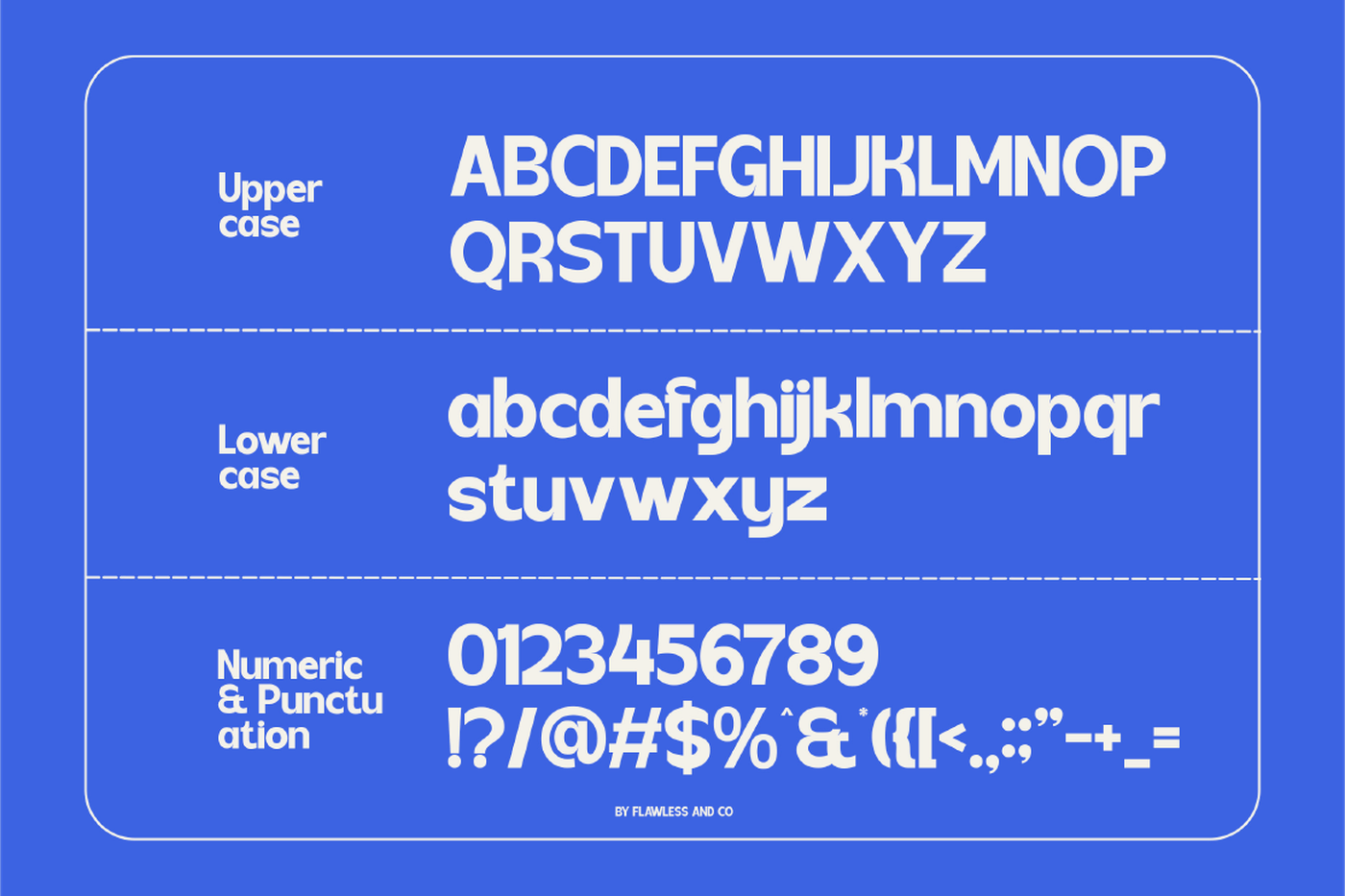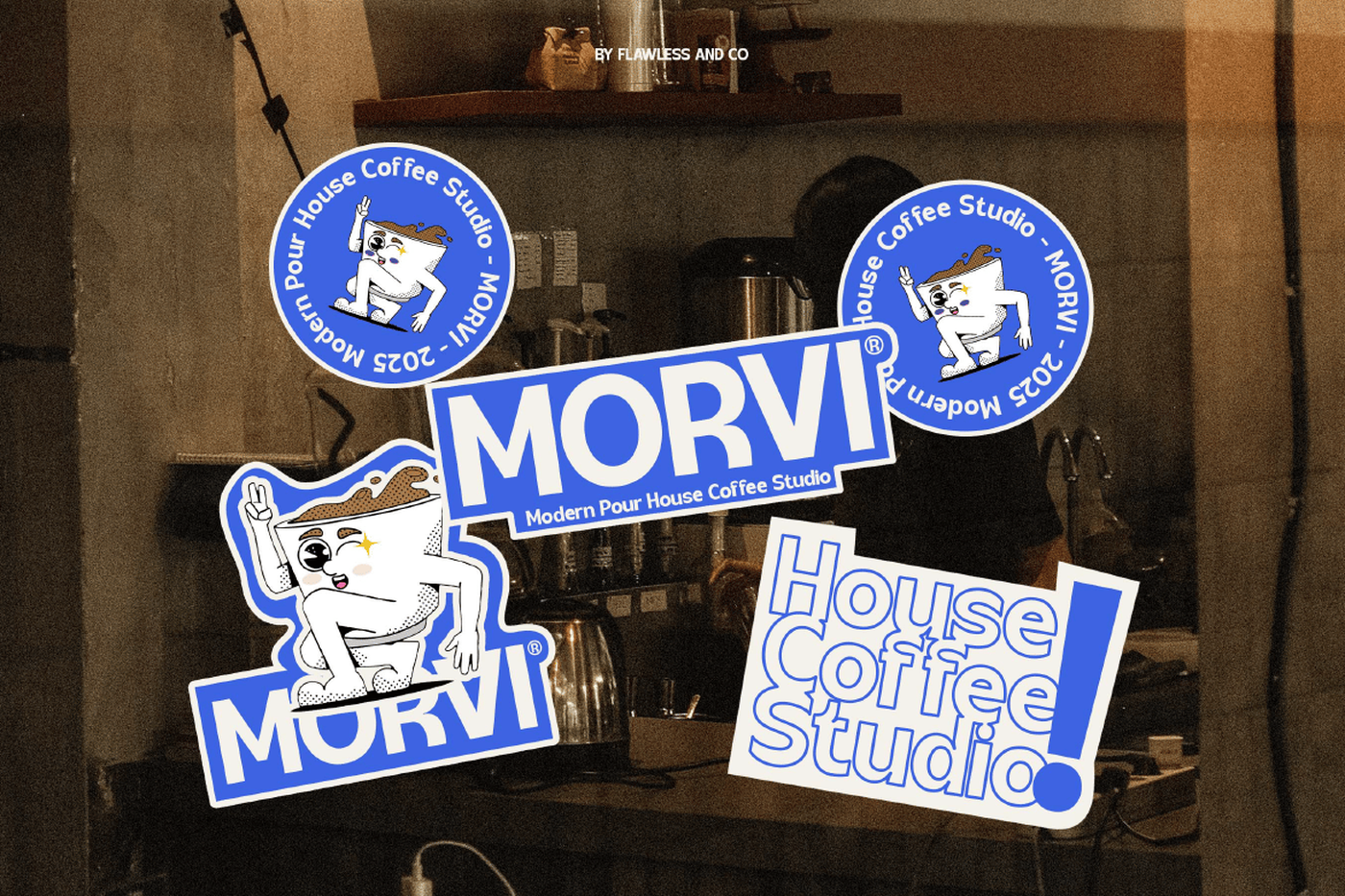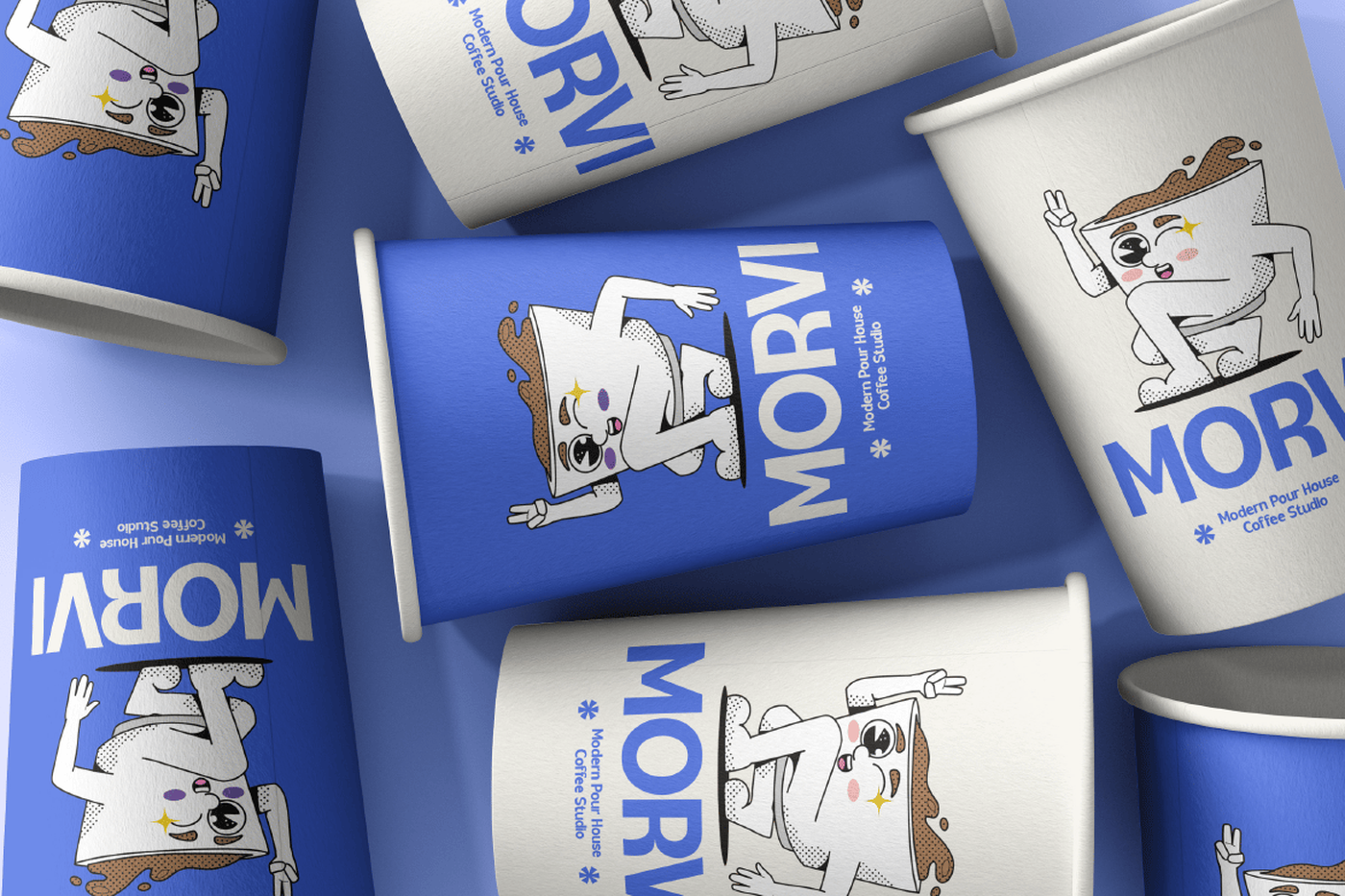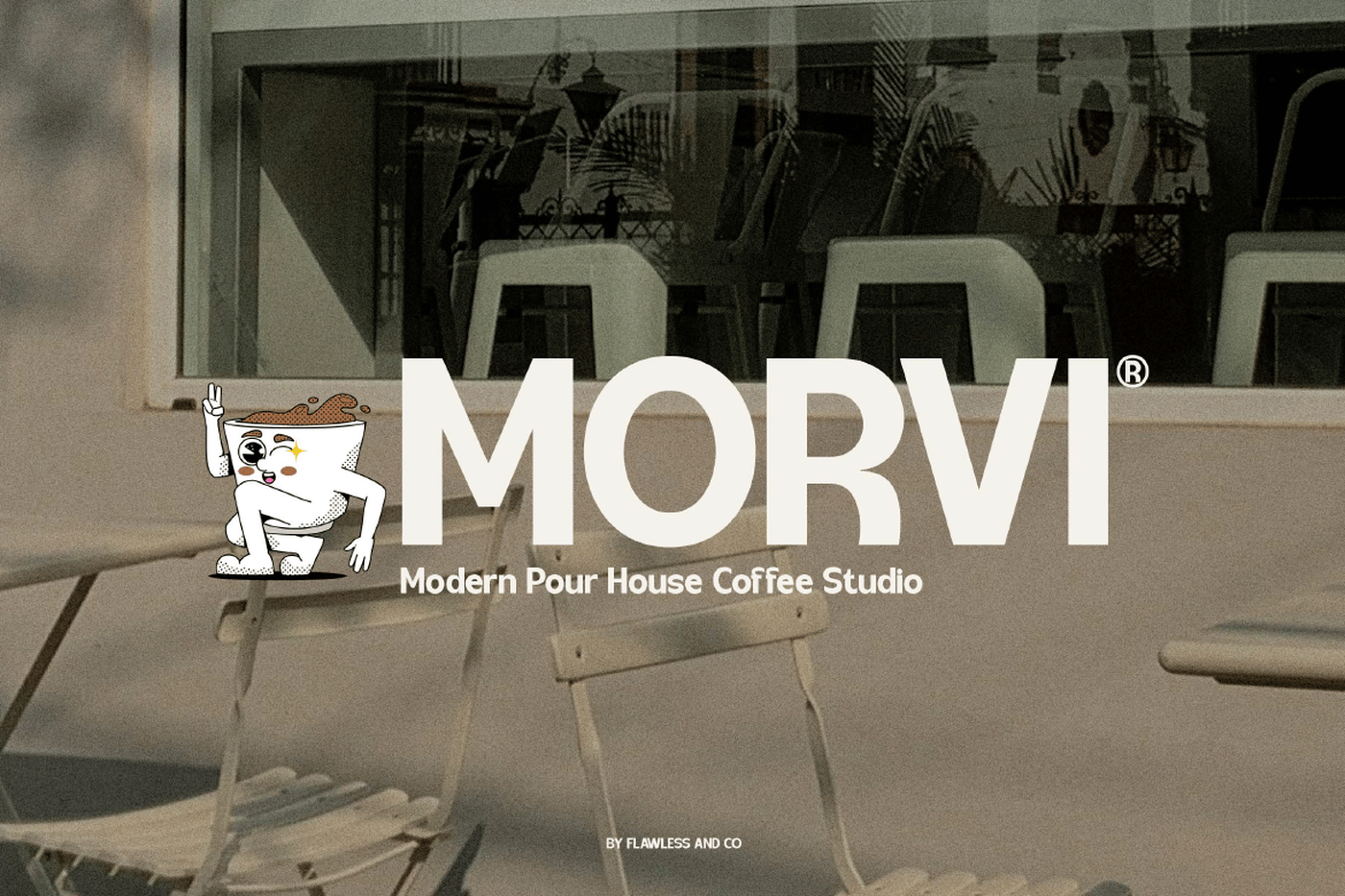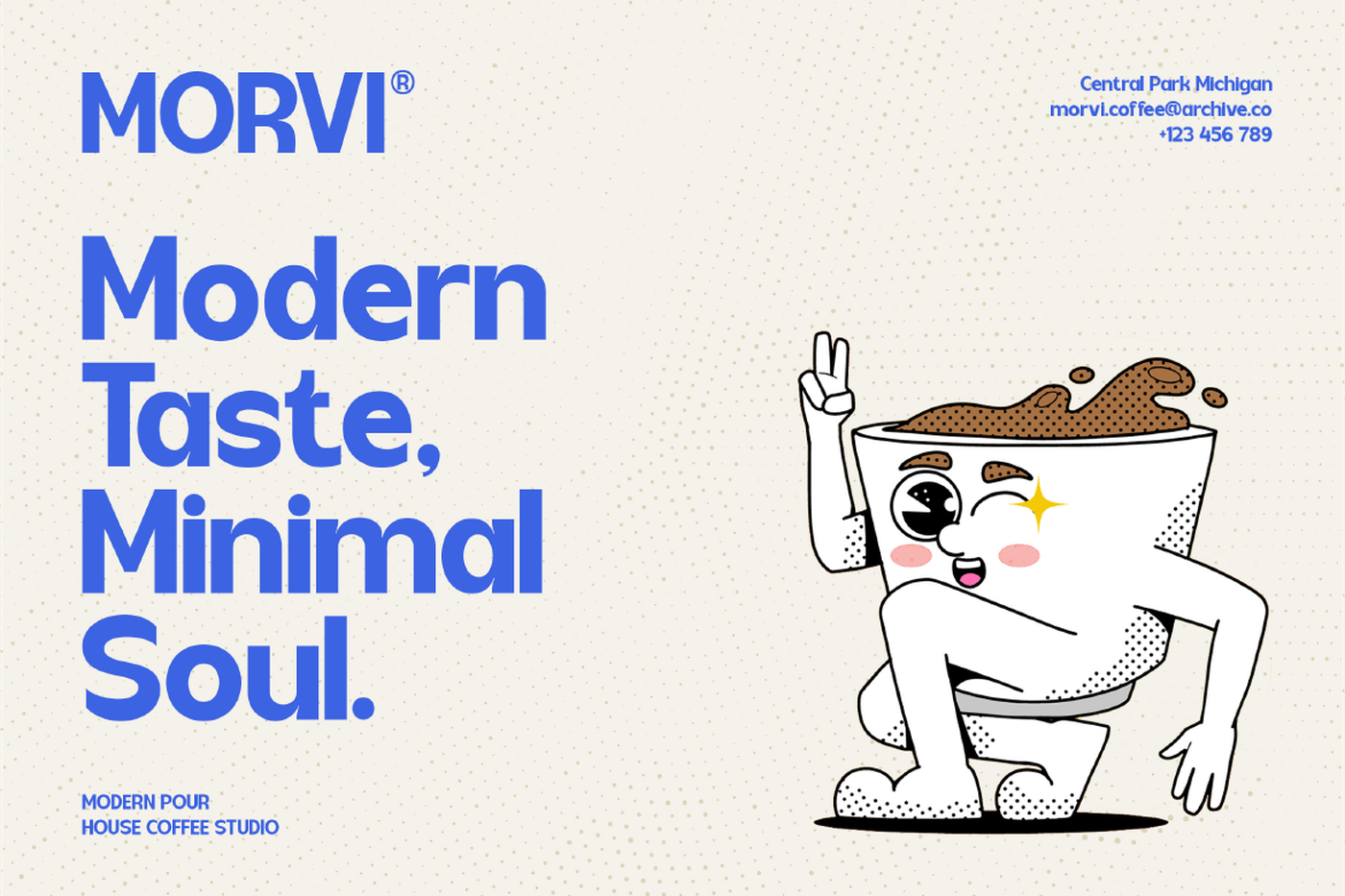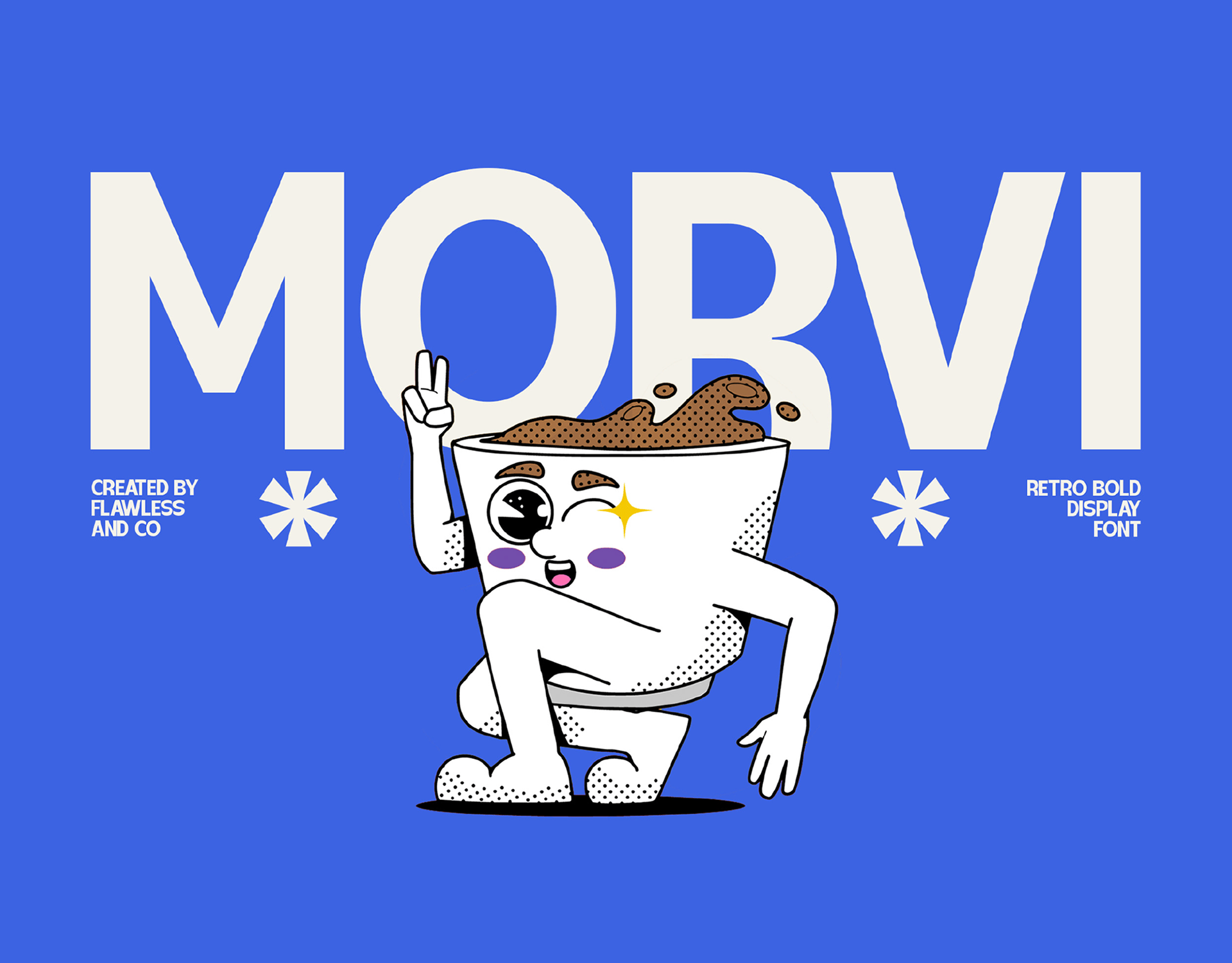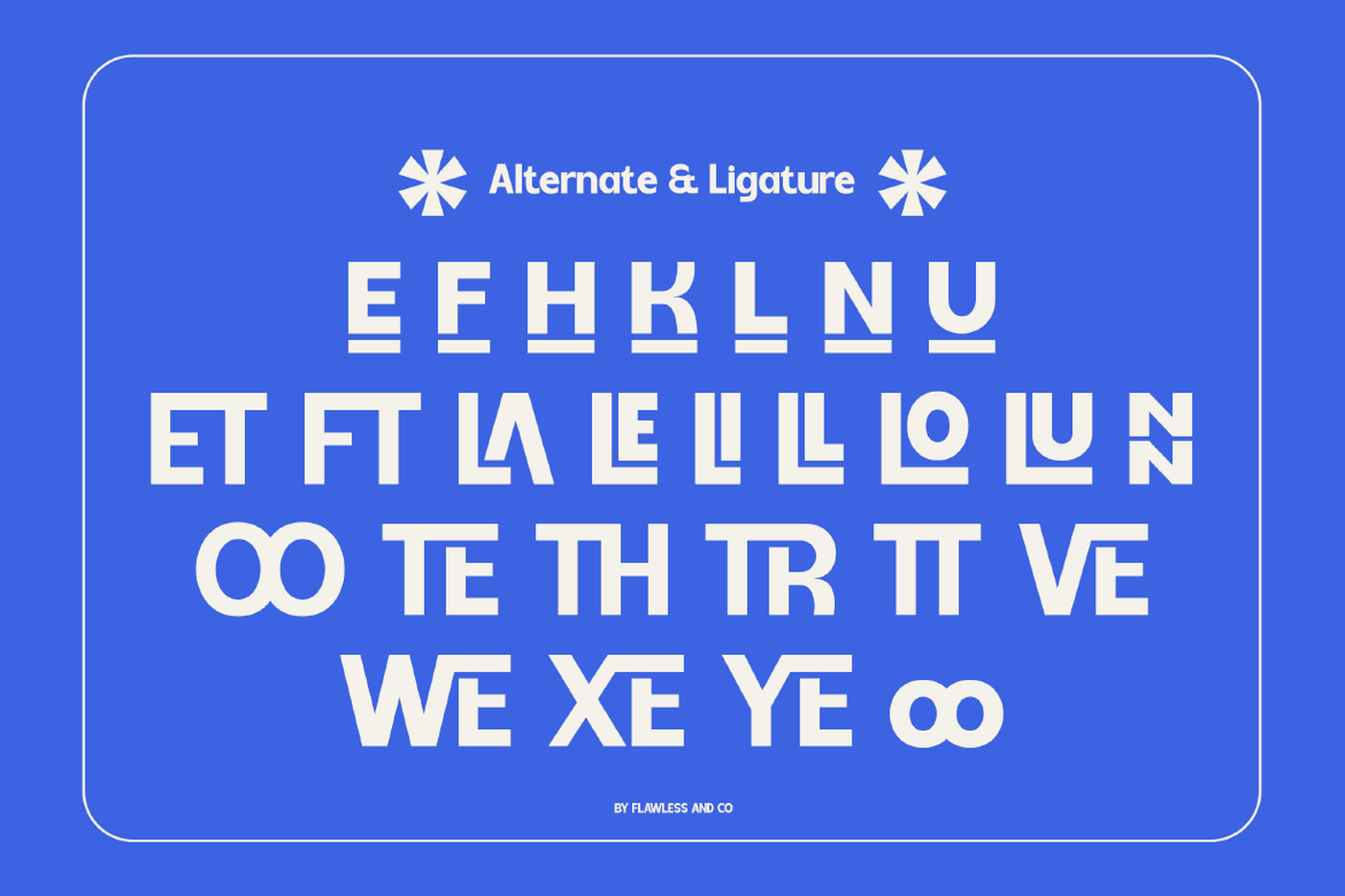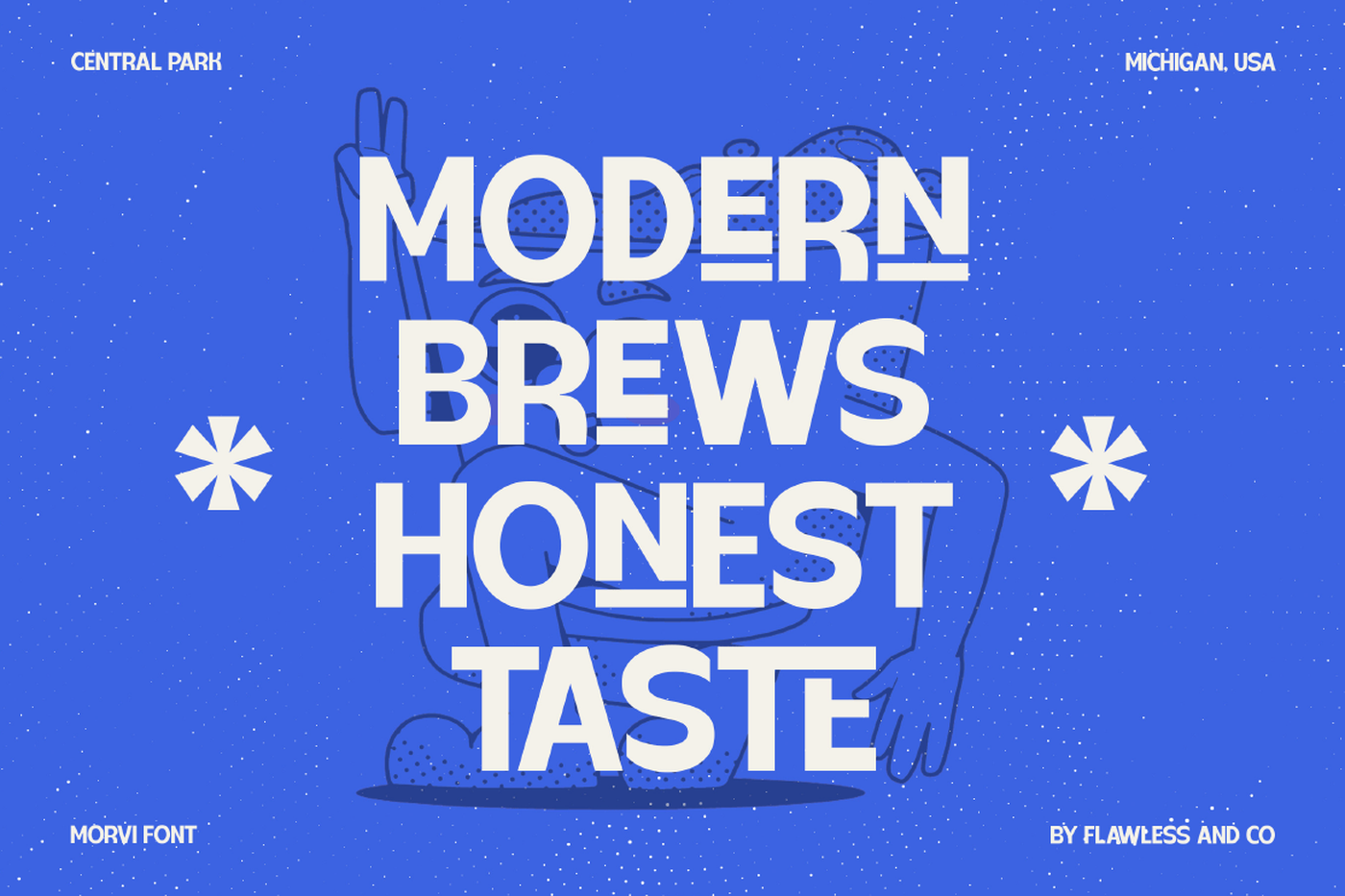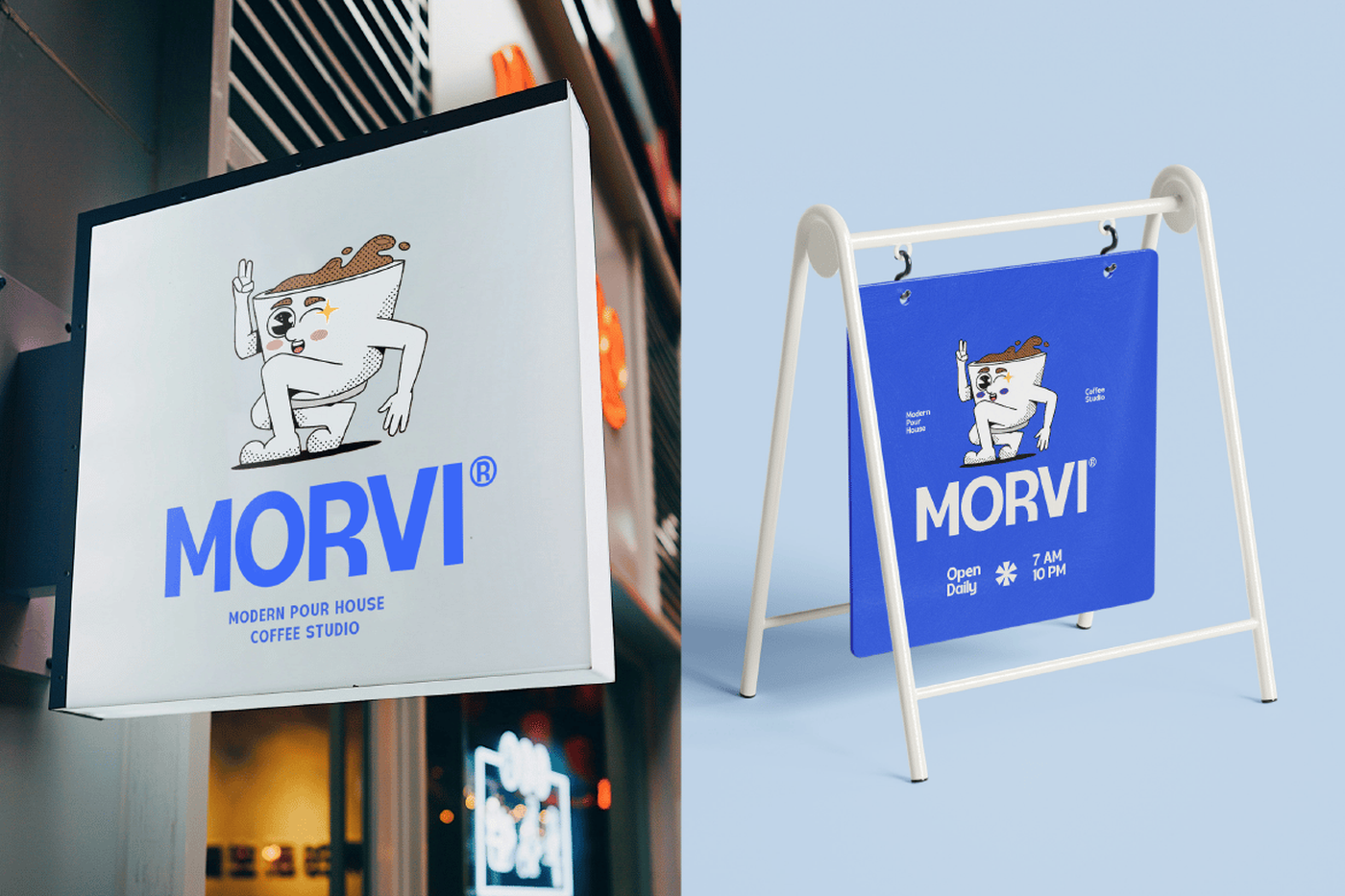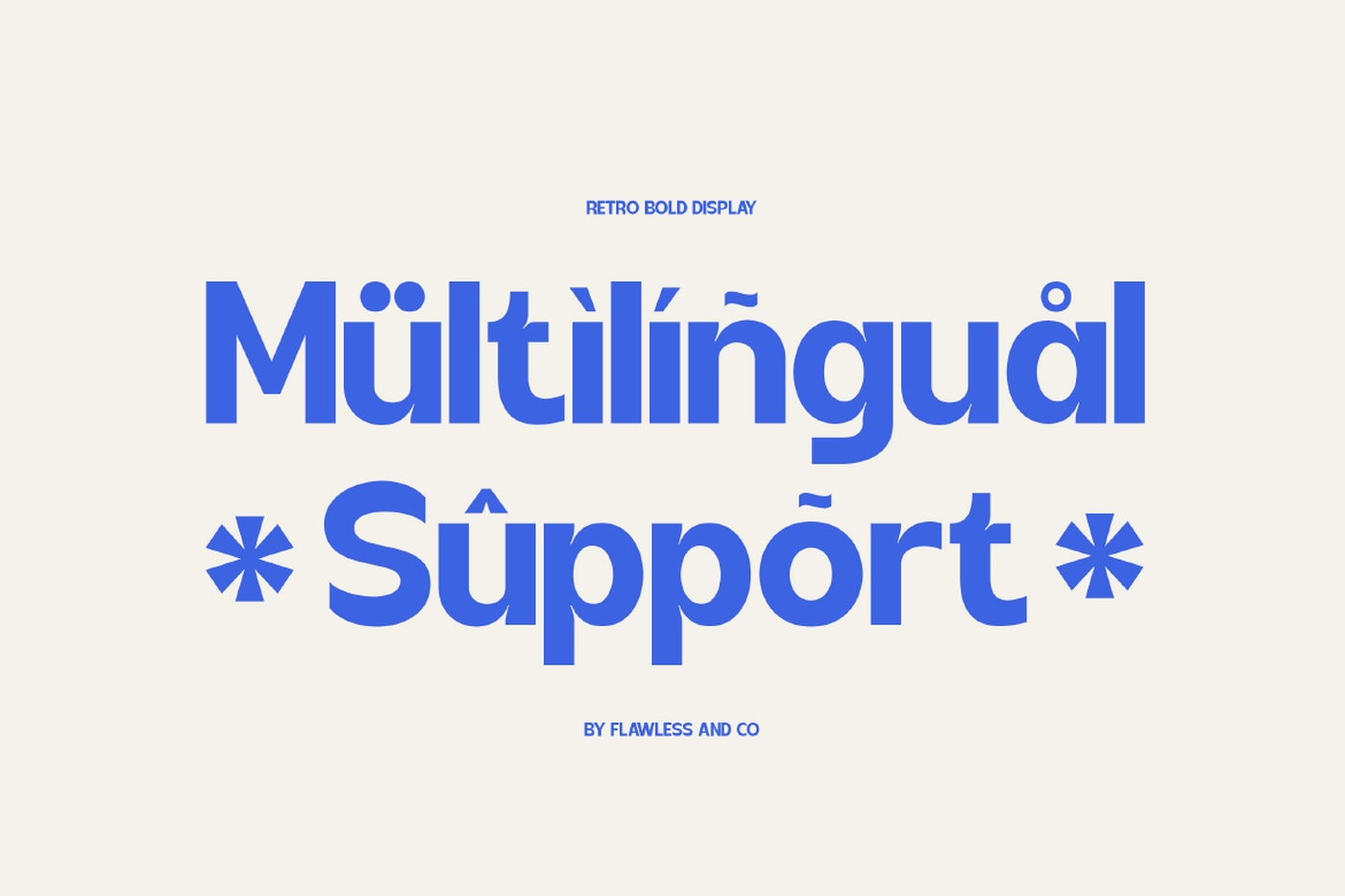
Morvi - Retro Bold Display Font
Morvi is a retro bold display font that brings playful nostalgia and confident energy into your design. With its thick, rounded shapes and vintage-inspired look, Morvi captures the fun, quirky charm of retro typography — perfect for projects that want to stand out with personality and boldness. Each letter is crafted with smooth curves and balanced proportions, making it ideal for eye-catching titles, branding, and packaging. Whether you’re designing a logo, poster, or social media headline, Morvi delivers a cheerful retro vibe that instantly attracts attention.
Font: Morvi